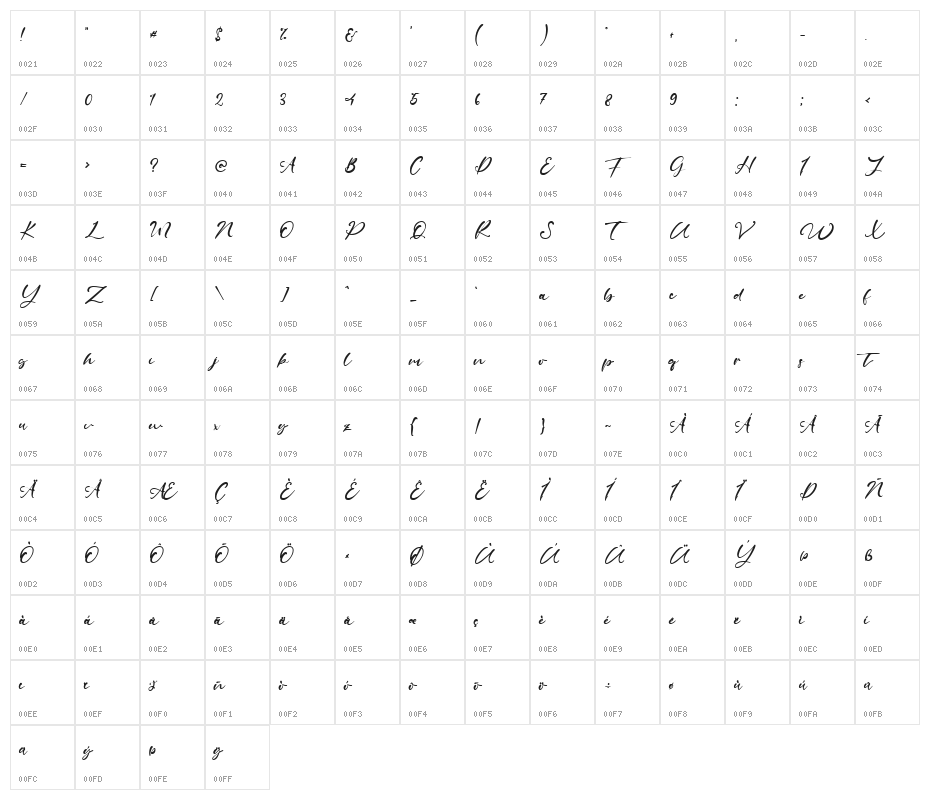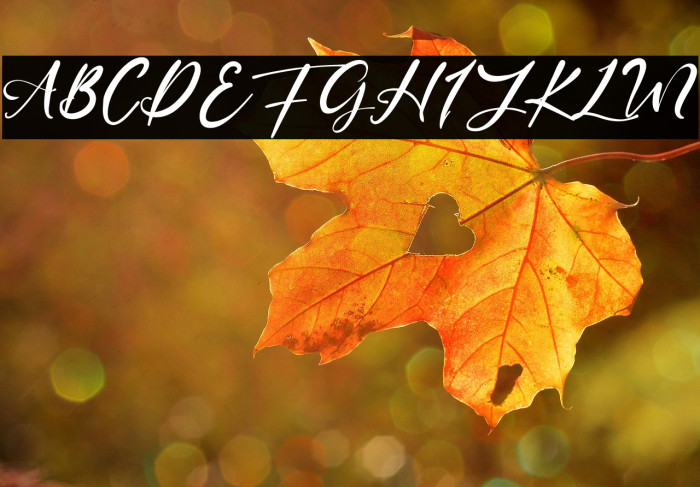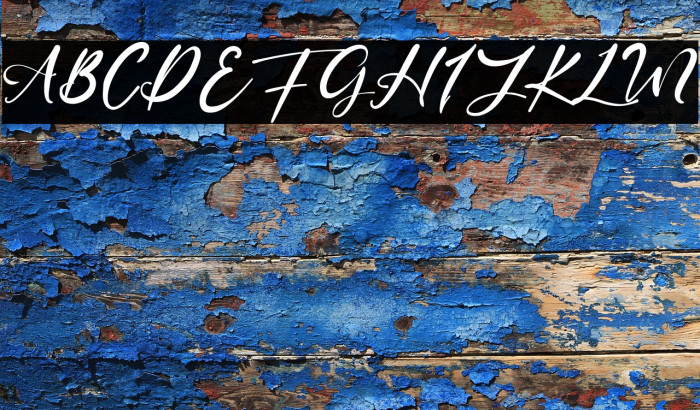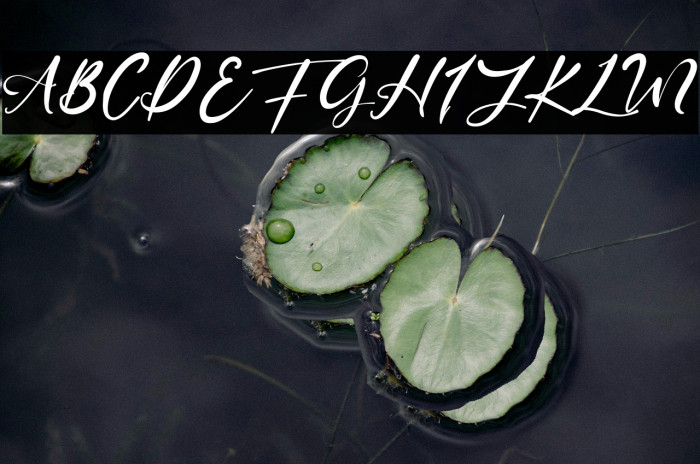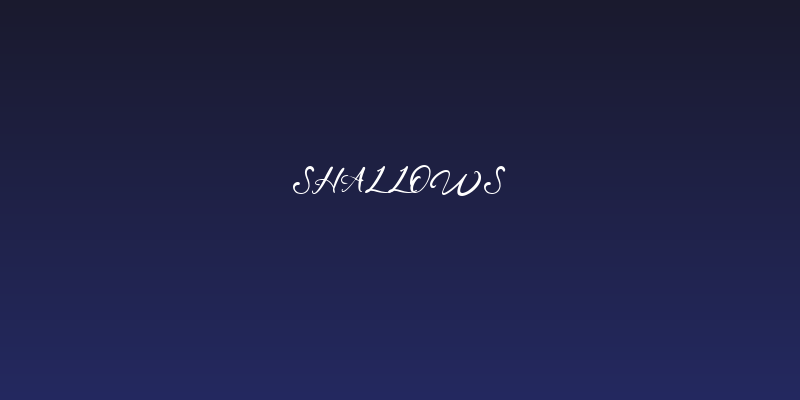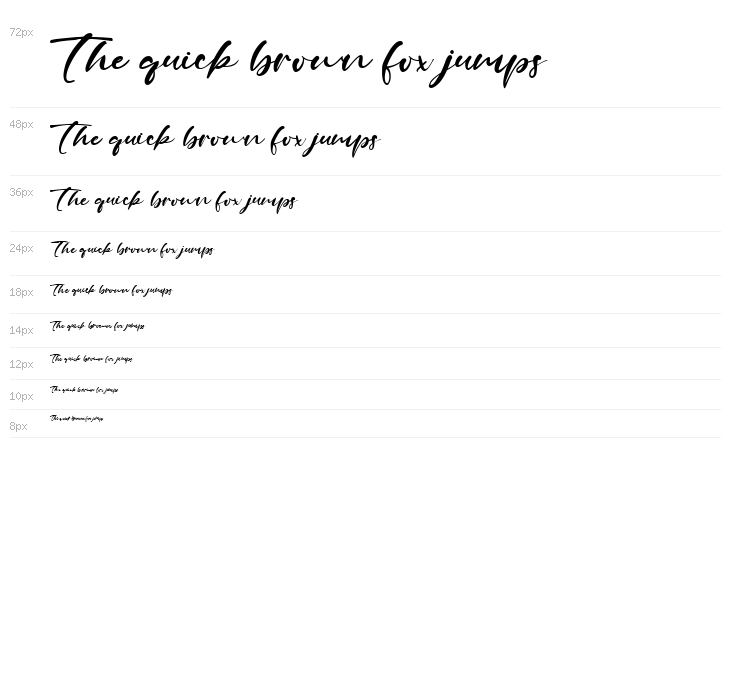
Shallows Font
Shallows Description
This font features a flowing, cursive style with elegant, sweeping strokes that give it a handwritten appearance. The uppercase letters are characterized by their dramatic flourishes and loops, while the lowercase letters maintain a consistent, smooth flow. The numerals and special characters complement the alphabet with similar curves and stylistic elements. The overall design is both sophisticated and approachable, making it suitable for a variety of creative projects.
| Use Case | Logos, Invitations, Greeting Cards |
| Proposed Projects | Ideal for wedding invitations, greeting cards, branding, and logo design. |